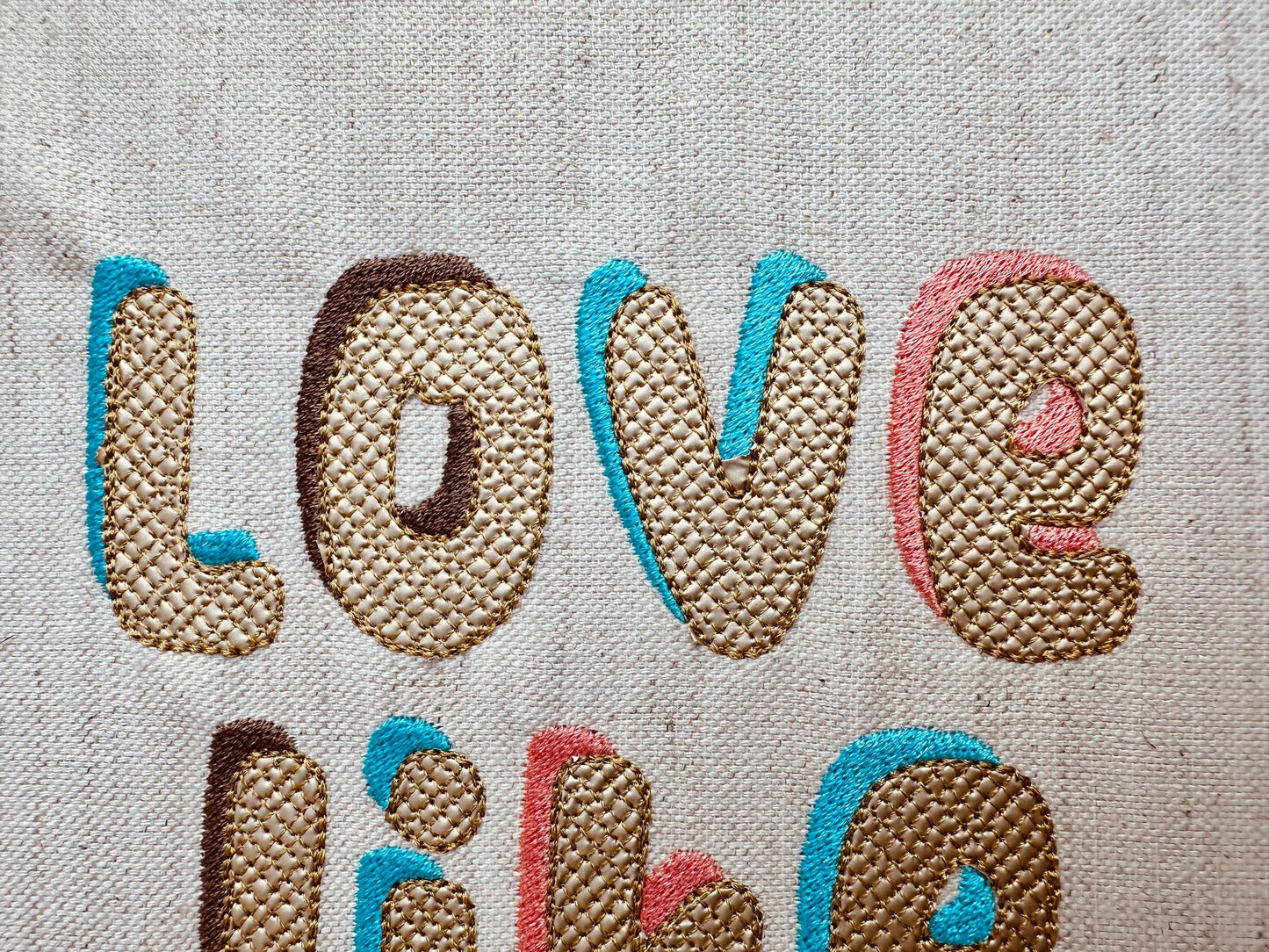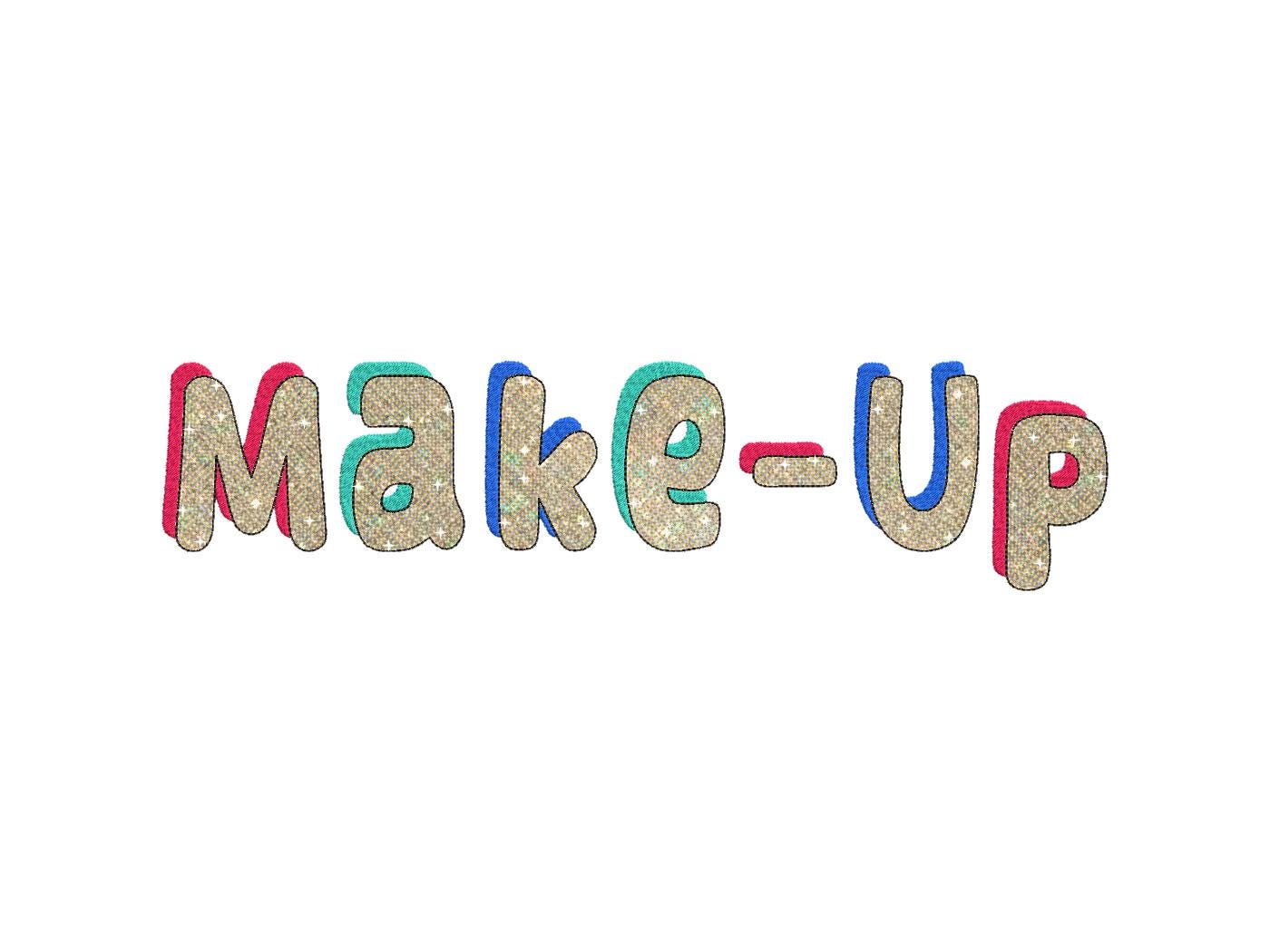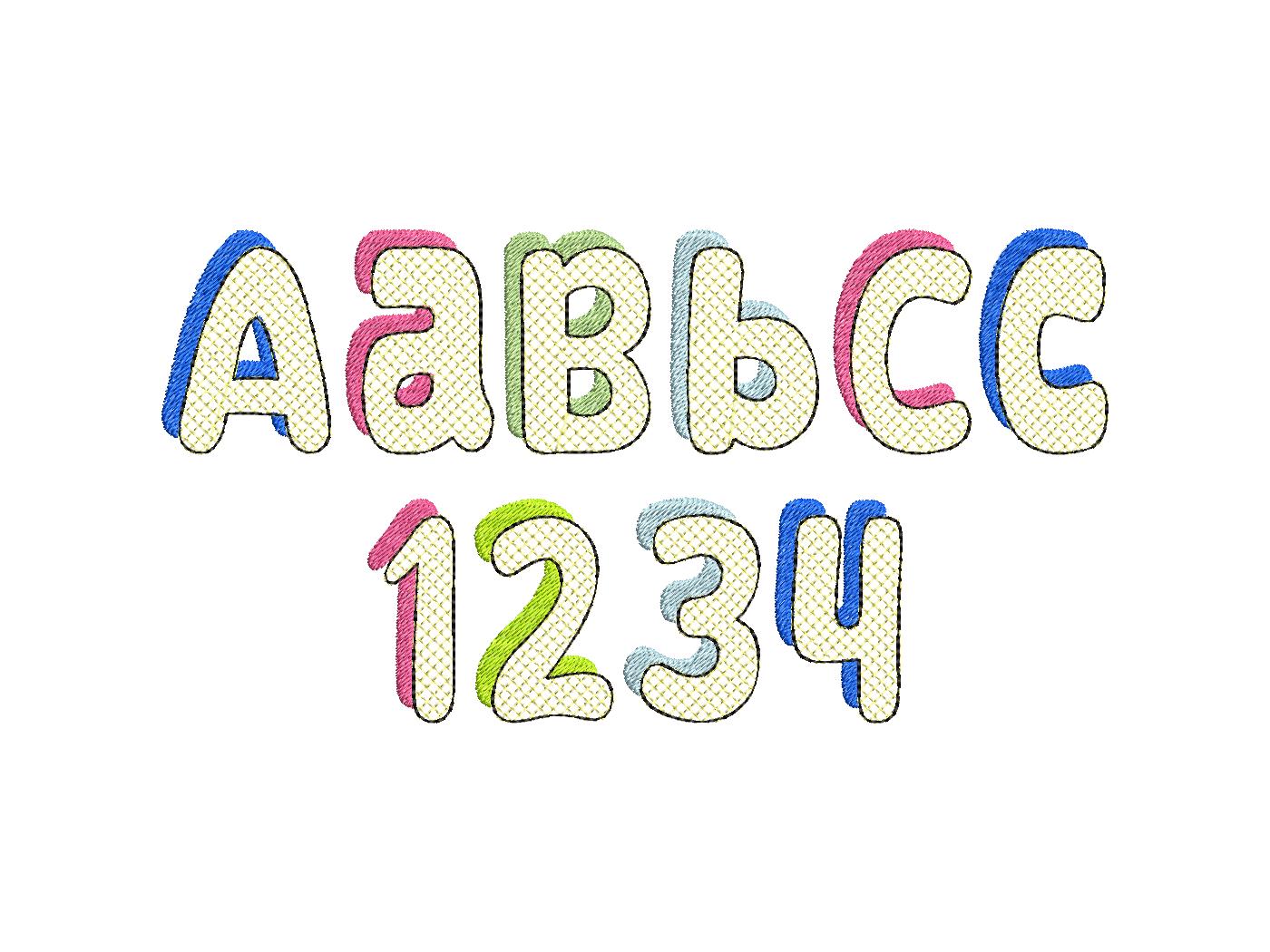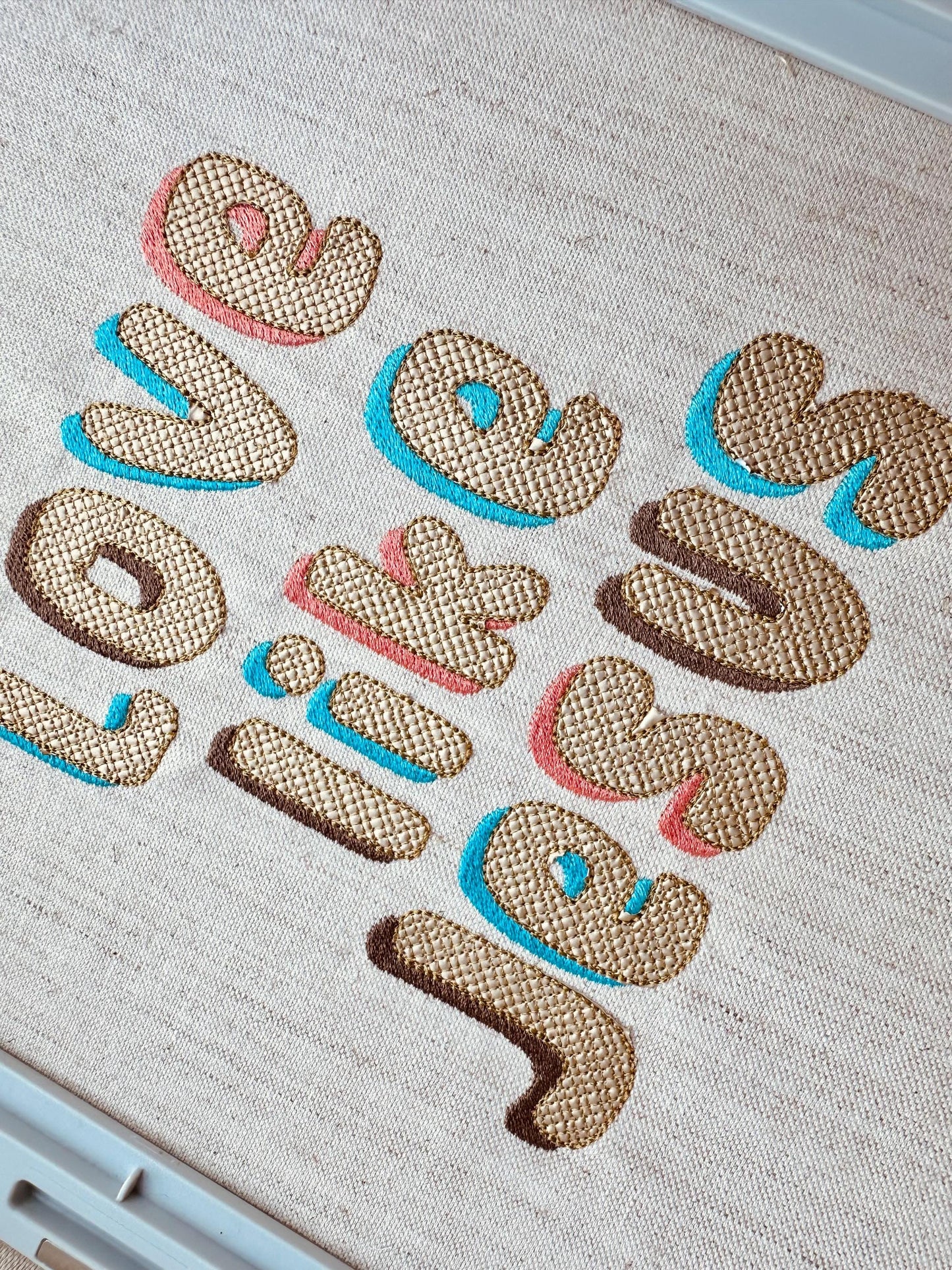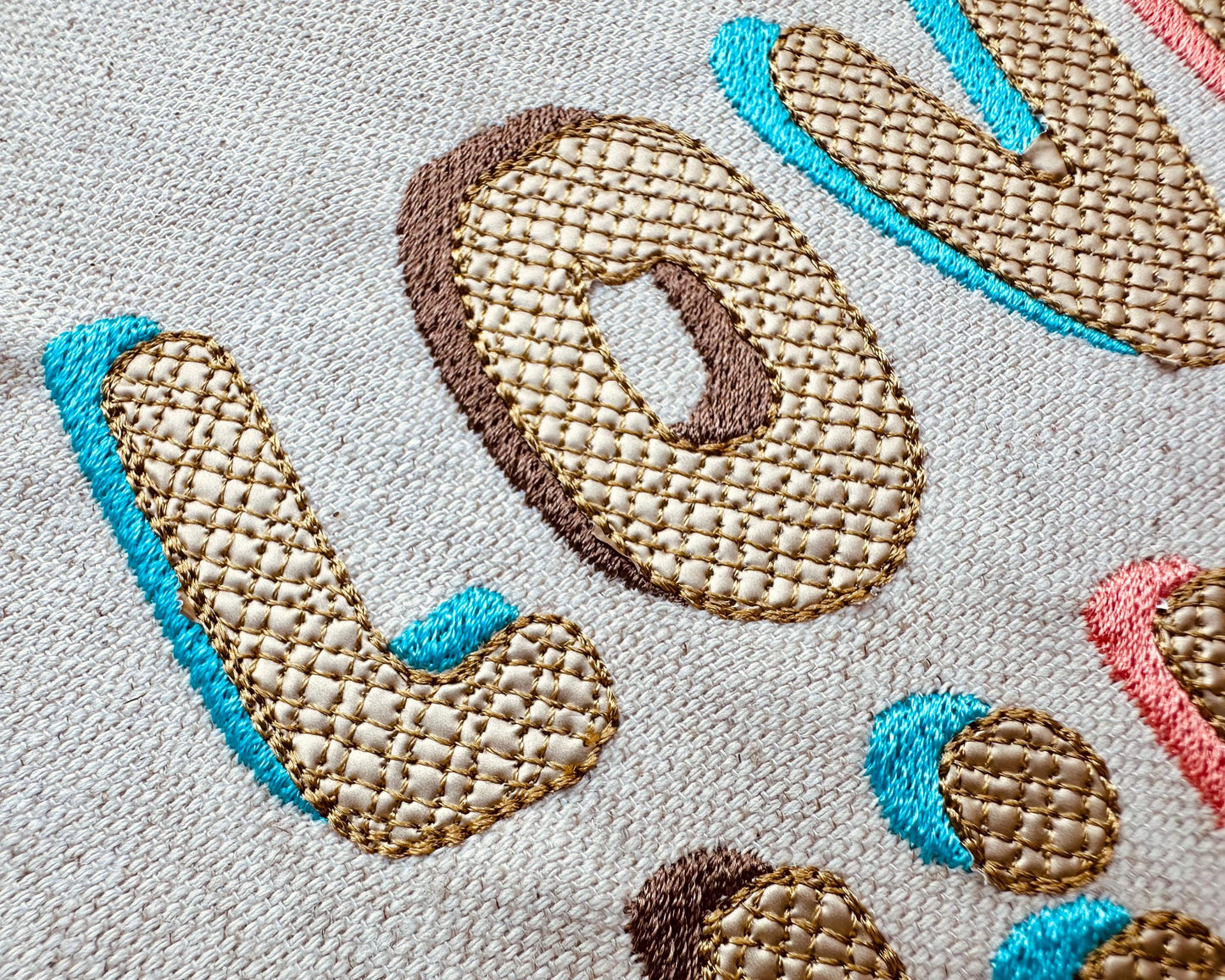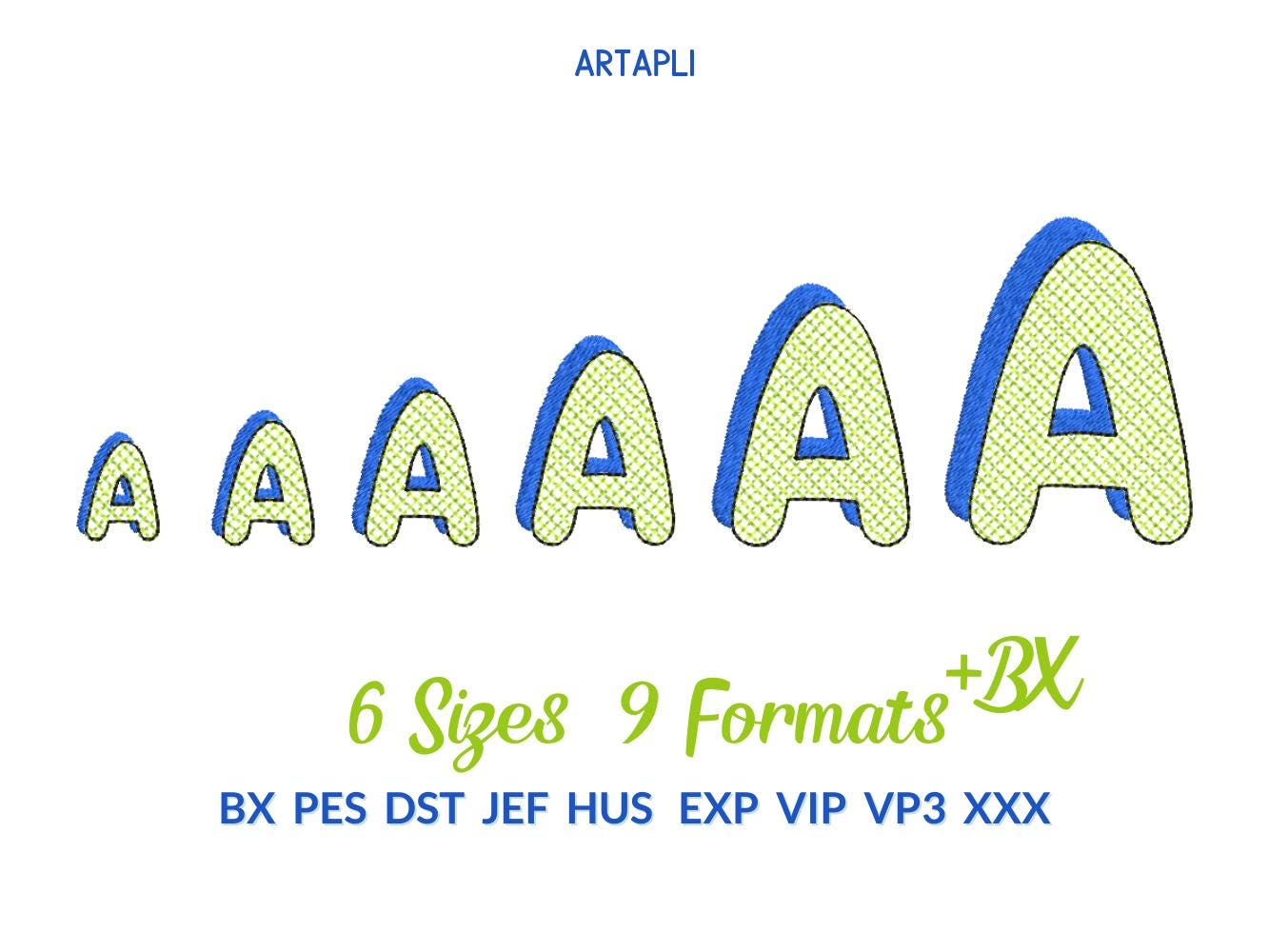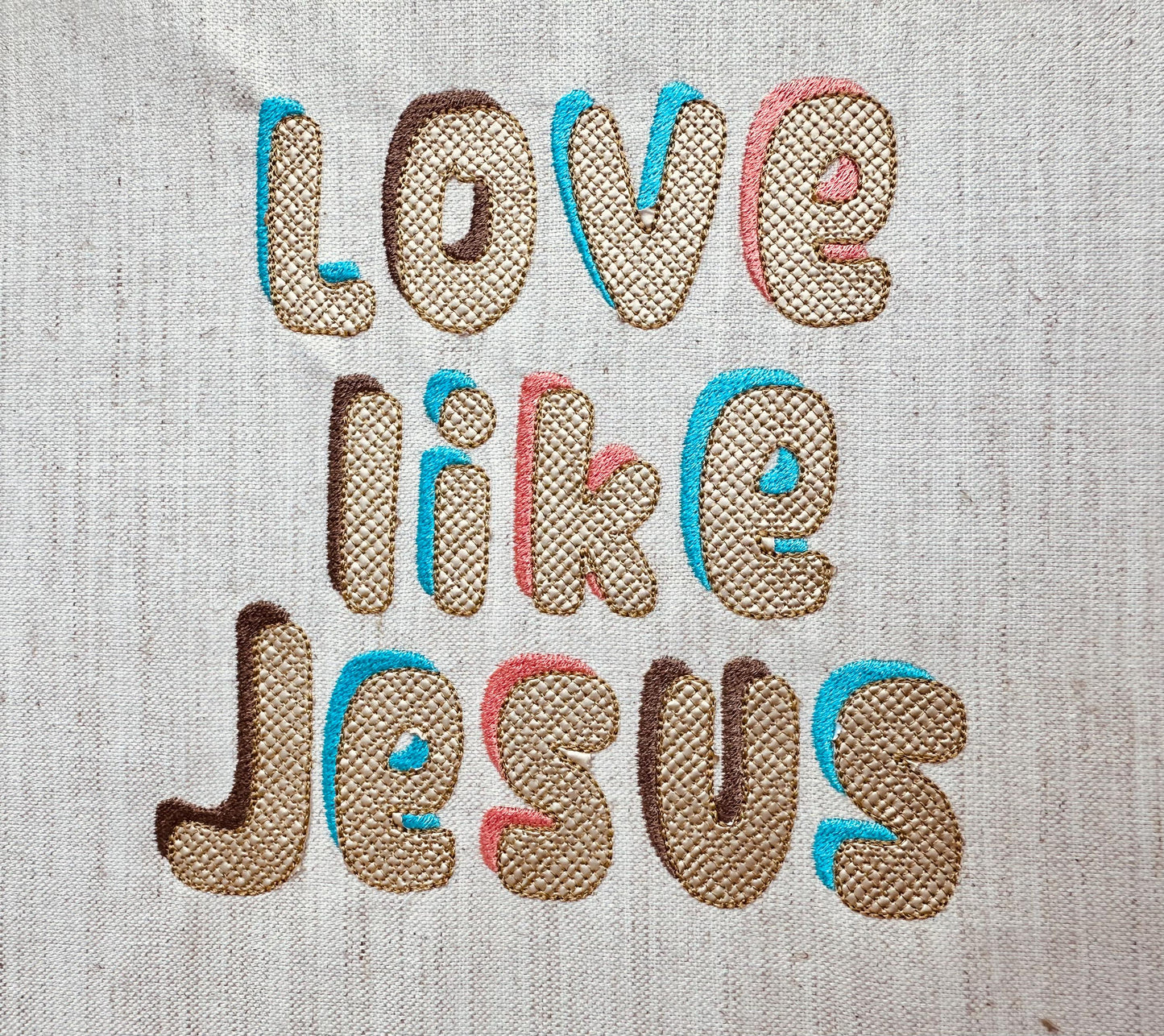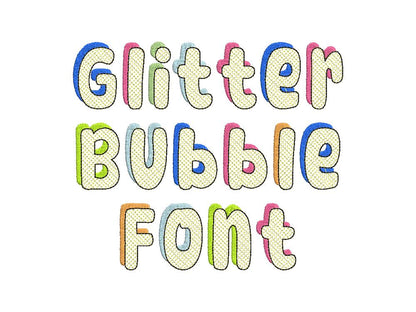
Glitter HTV Bubble Shadow Font
Or click to open the linkA bubble shadow font made for glitter heat transfer vinyl. Sparkly for names and monograms on shirts, bags and party outfits.
Uppercase and lowercase letters, numbers 0 to 9 and punctuation, in six mini sizes: 0.9, 1.2, 1.4, 1.8, 2.3 and 2.8 inches. Press the glitter vinyl on with a heat press or iron.
- Glitter vinyl bubble shadow font
- Uppercase and lowercase letters, numbers 0-9, punctuation